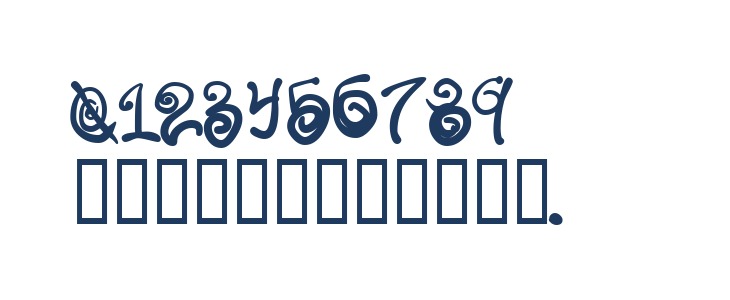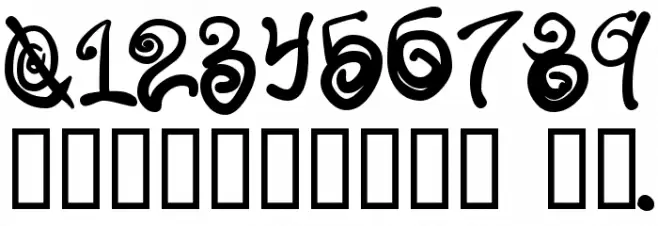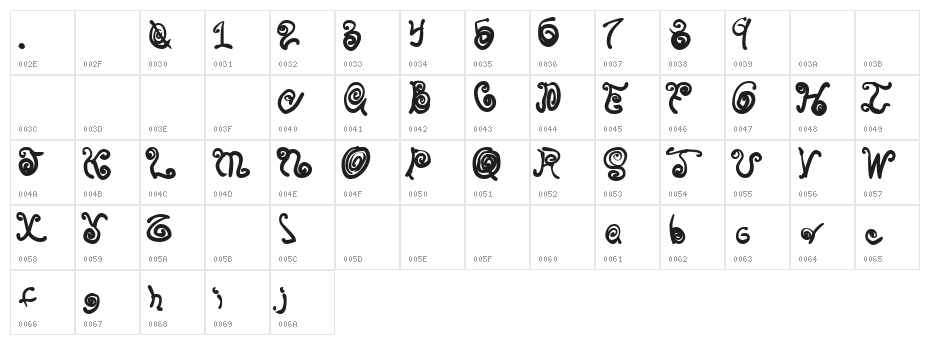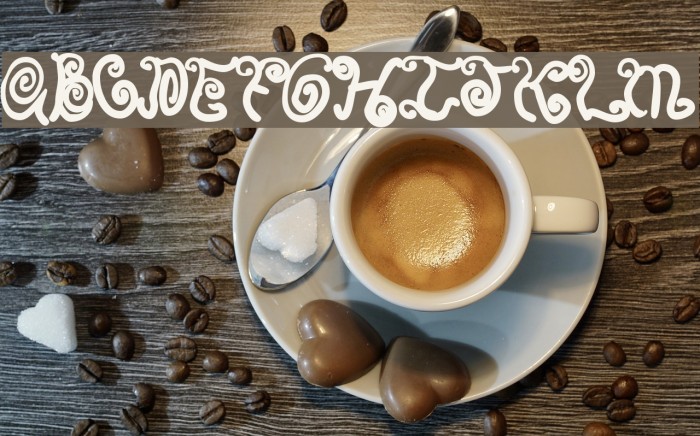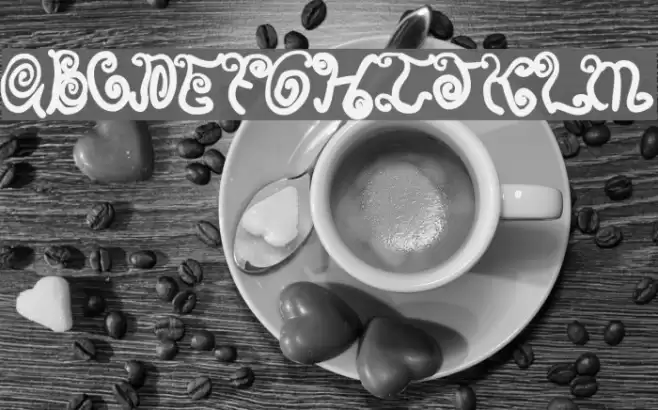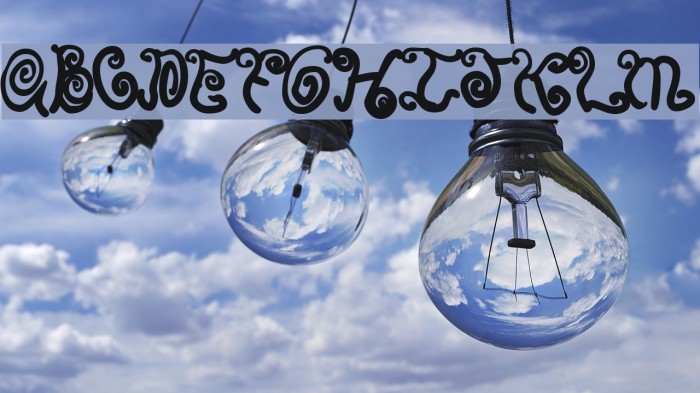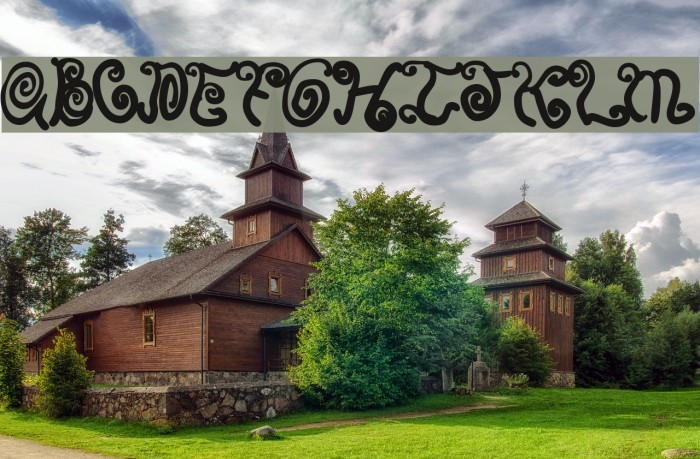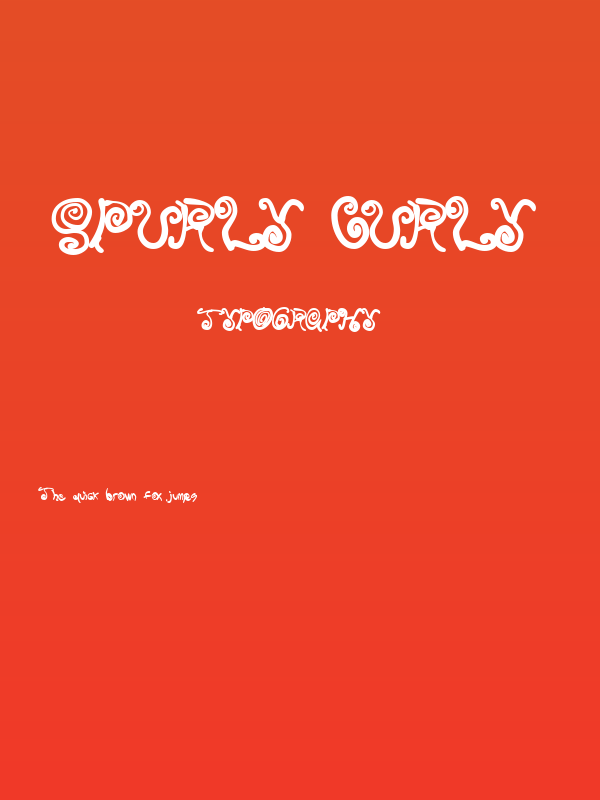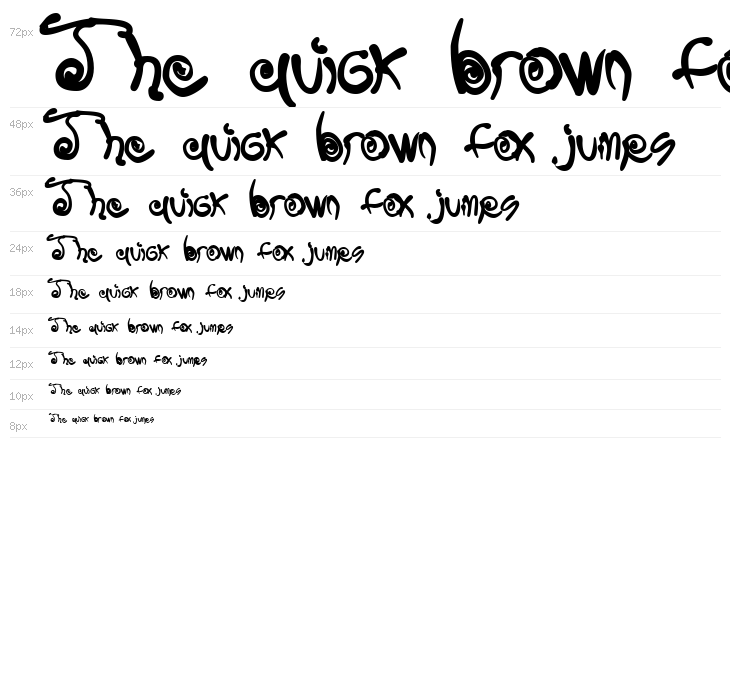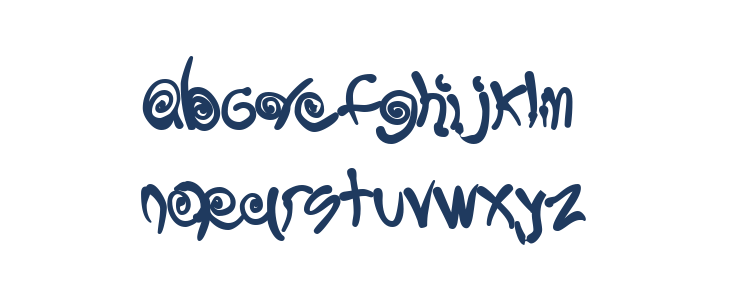
Spurly Curly Font
Spurly Curly Description
This font features a whimsical and playful design with exaggerated curls and loops, giving it a lively and dynamic appearance. The characters are bold and rounded, with each letter incorporating unique swirls that add a sense of movement and energy. The uppercase and lowercase letters maintain a consistent style, while the numbers and special characters follow the same playful theme. This font's distinctive style makes it stand out, perfect for projects that require a touch of fun and creativity.